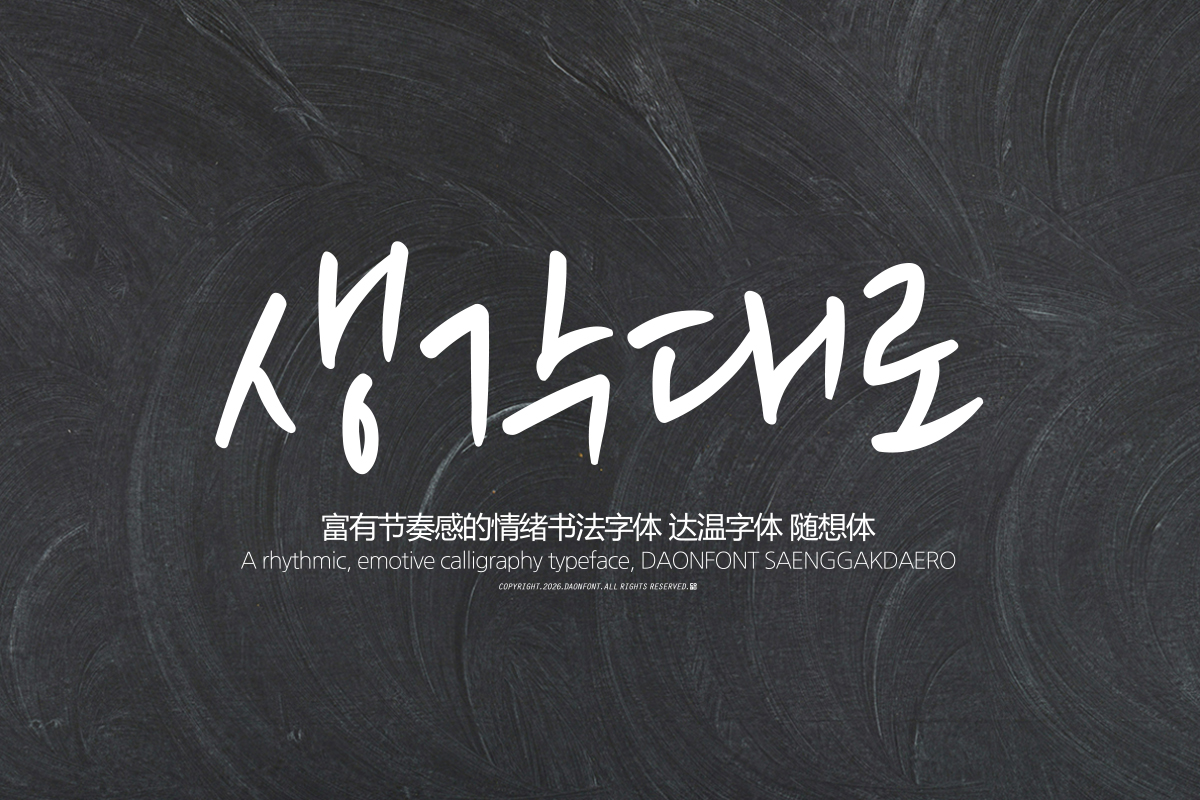
DAON SAENGGAGDAELO 500
DaonFont 'SAENGGAGDAELO' is a penmanship-style Hangul typeface distinguished by its natural rhythm and vibrancy, appearing as if it were freely written by hand.